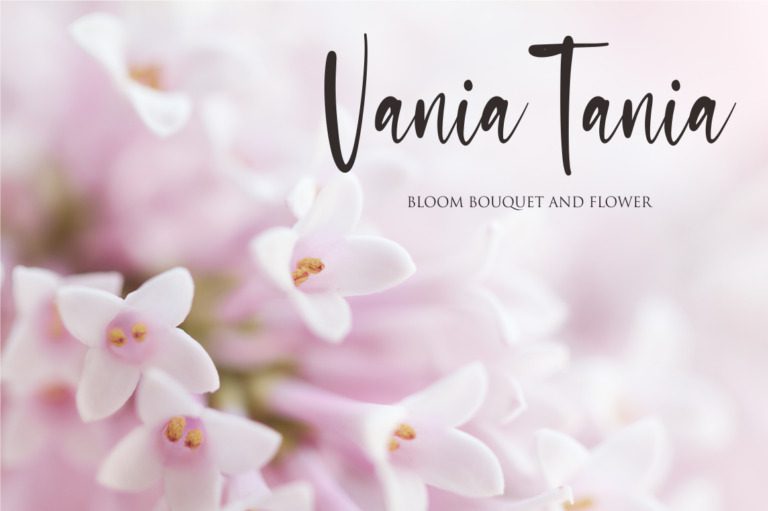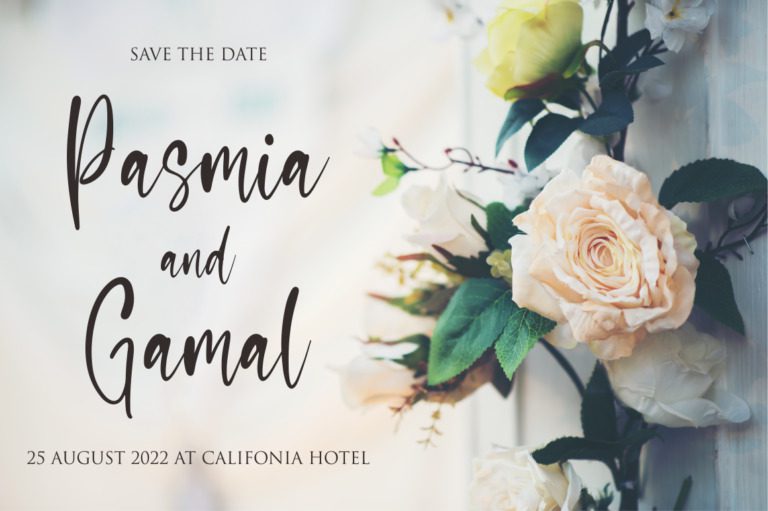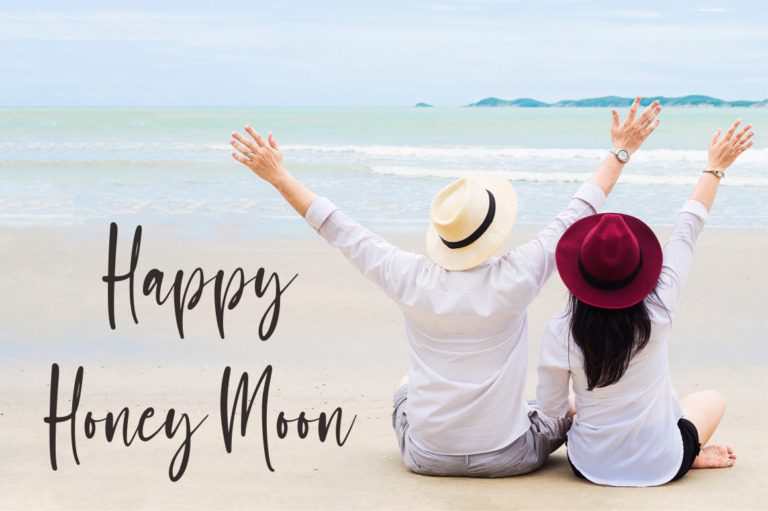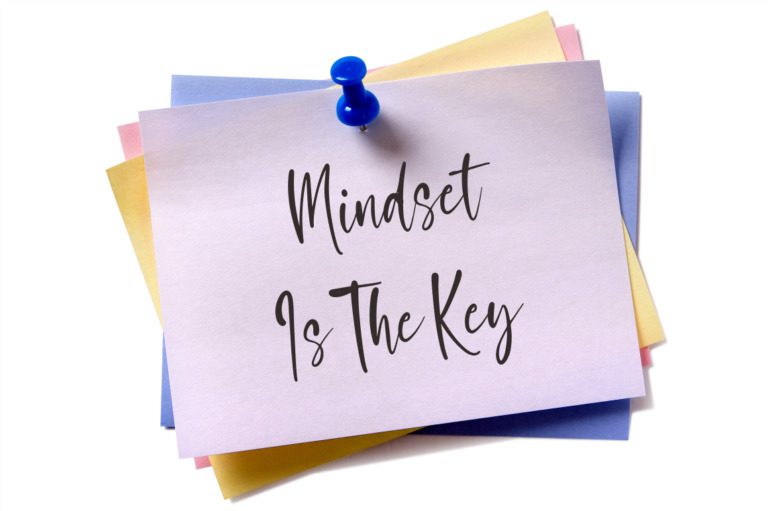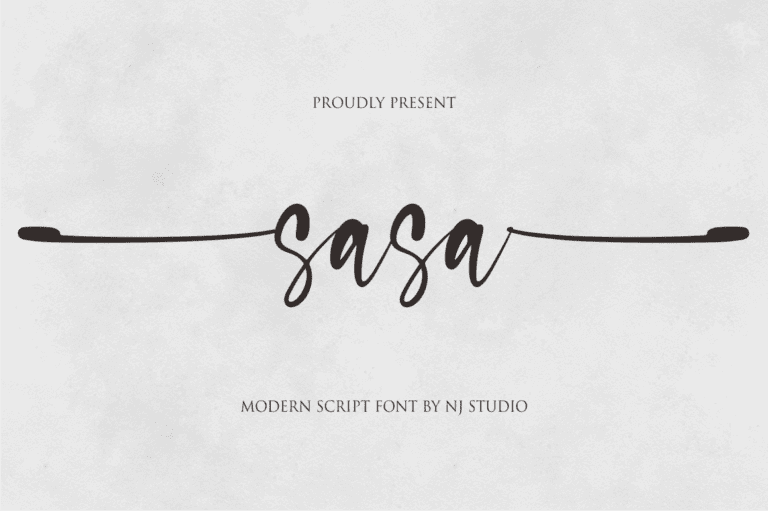
Sasa Font
Sasa is a modern script font with a touch of elegance. Its flowing strokes and beautiful ligatures make it perfect for a variety of design projects, from wedding invitations and social media graphics to branding and packaging. With its versatile style, Sasa adds a touch of sophistication to any design.